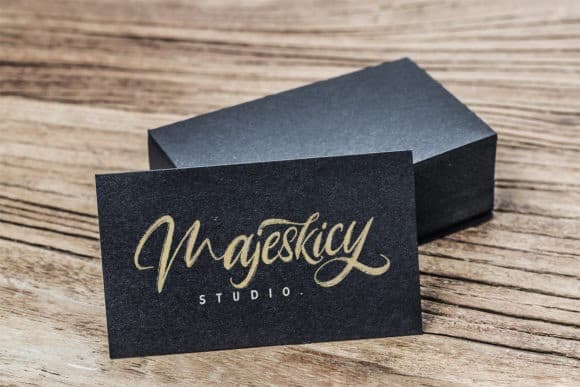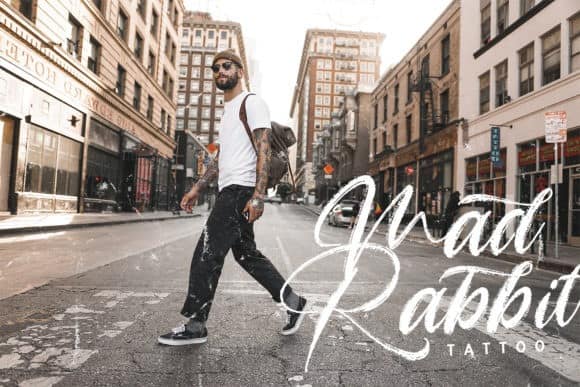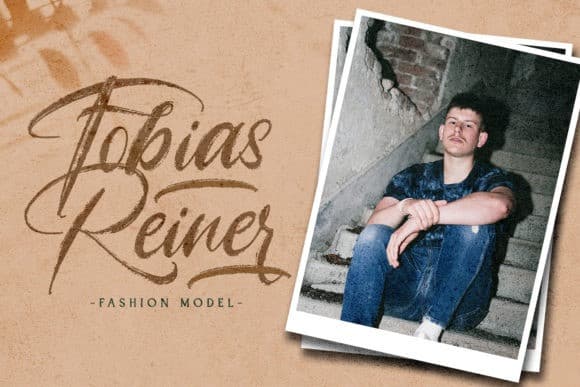
Angelicy Brush Font is a beautiful textured brush typeface, a contemporary approach to design, naturally handmade and with a cool underlines. It also has several ligatures and alternatives that make your design more attractive. Angelicy is designed and shared by StringLabs. Clean and a little bit quirky, this font is the perfect fit for all of your logos, branding, social media, and crafty DIY projects.